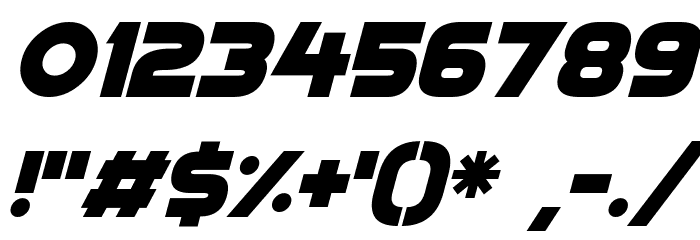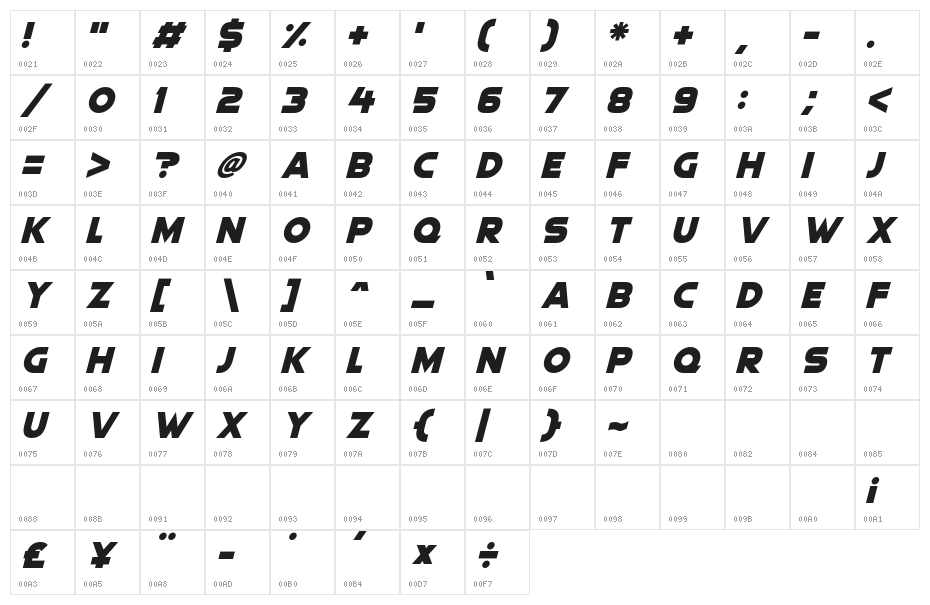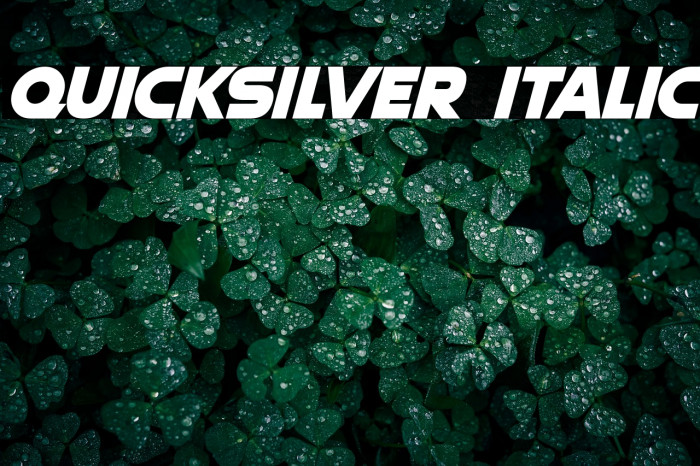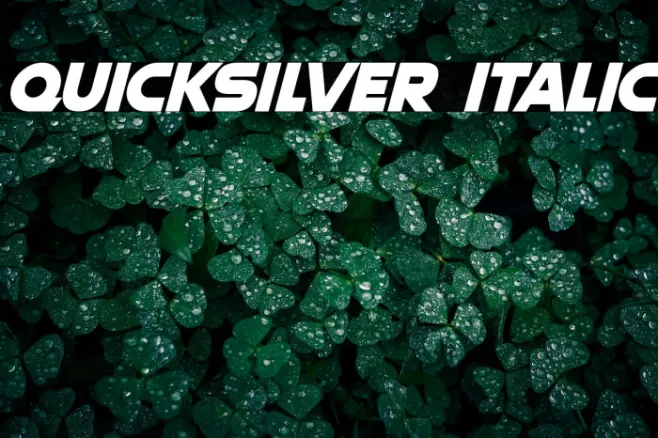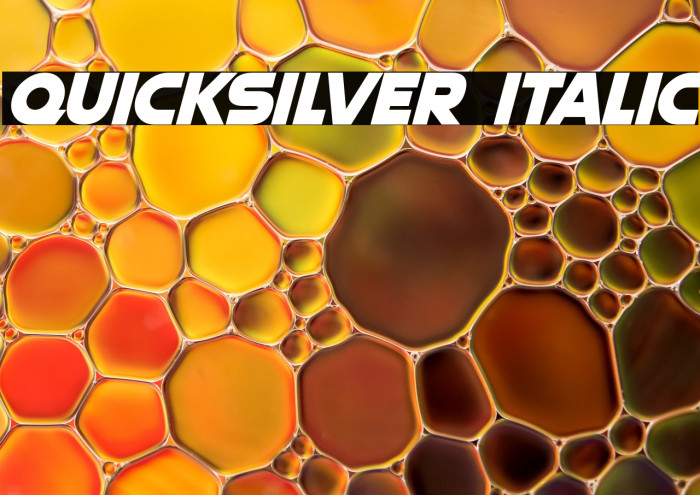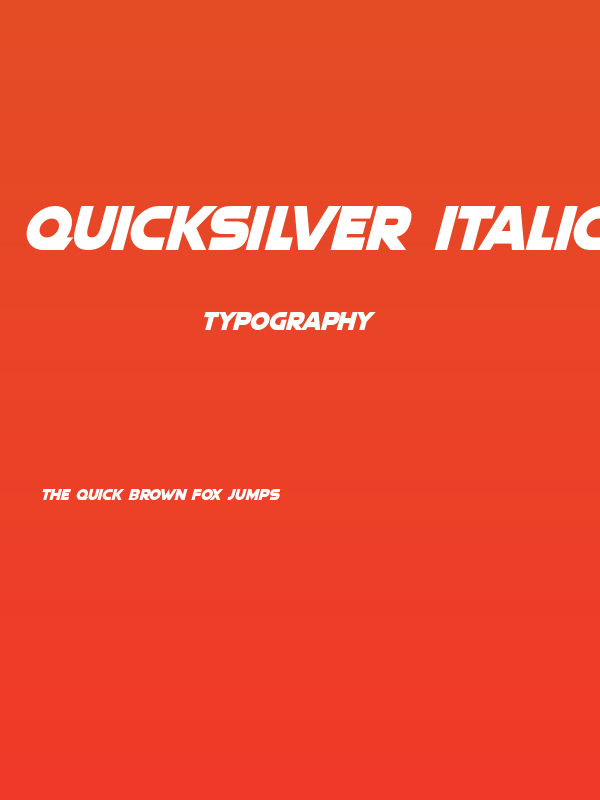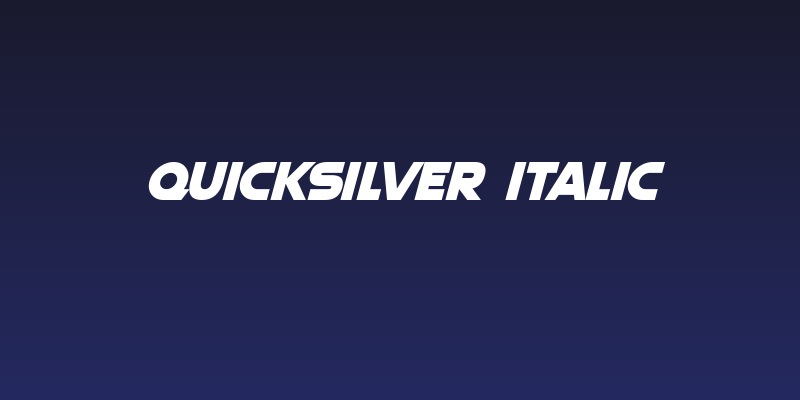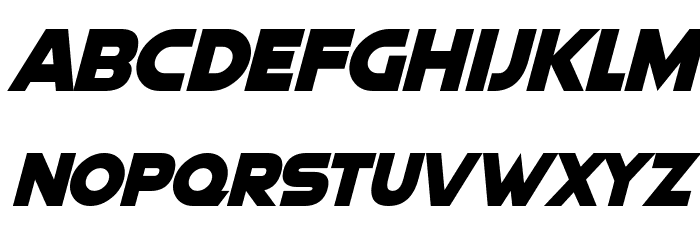
Quicksilver Italic Font
Quicksilver Italic Description
This font features a bold and dynamic italic style with a strong forward slant, giving it a sense of motion and speed. The characters are wide and robust, with a uniform stroke thickness that maintains a consistent appearance across all letters and numbers. The design is clean and modern, with a slight geometric influence that adds to its contemporary appeal. The uppercase and lowercase letters are well-proportioned, and the numerals are clear and easily distinguishable. Special characters are included, maintaining the same bold and slanted style, making this font versatile for various uses.